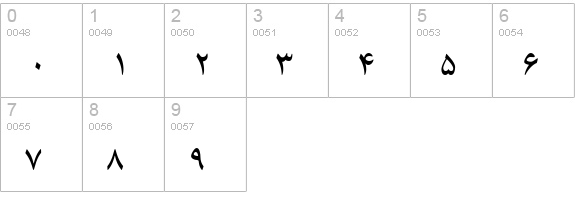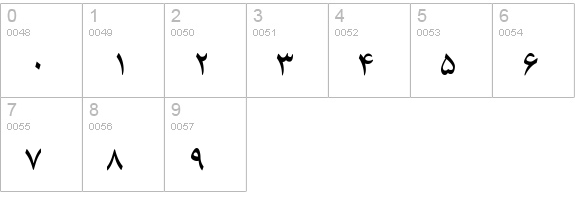
B Zar Font Details
B Zar font is a modern and stylish typeface that exudes elegance and sophistication. With its unique design and clean lines, this font is perfect for adding a touch of flair to any project. Whether you are designing a website, creating a logo, or crafting a poster, B Zar font will make your text stand out and grab attention. The best part about B Zar font is that it is completely free to download. You can get your hands on this stunning font at FontsMarket.com without having to spend a penny. So why wait? Add B Zar font to your collection today and take your designs to the next level.